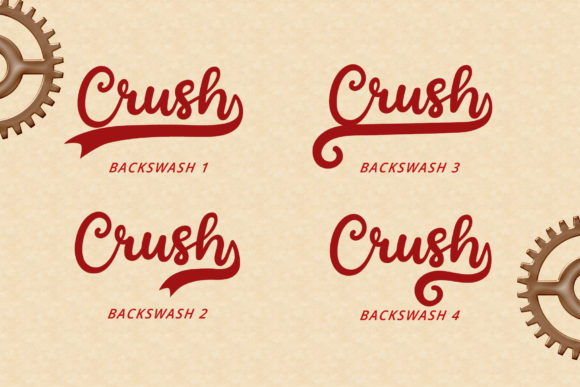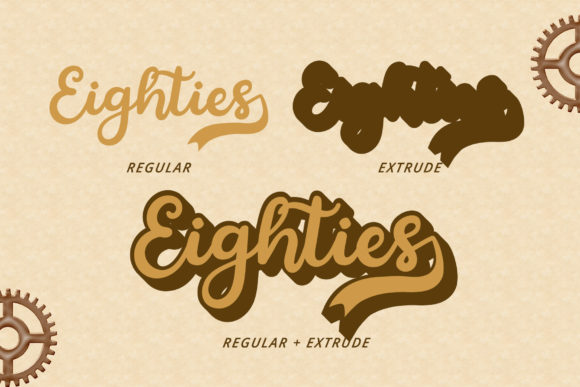
Charter Winter Font
db-ku.com - Script & Handwritten -- Charter Winter is a sweet handwritten font, designed with a retro touch. Fall in love with its incredibly versatile style and use it to create gorgeous invitations, beautiful stationary art, eye-catching social media posts, and much more!